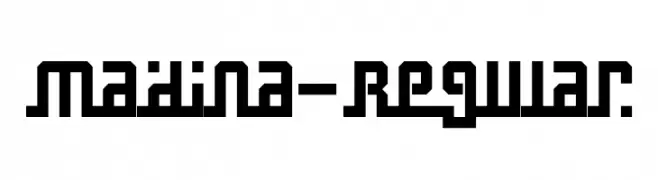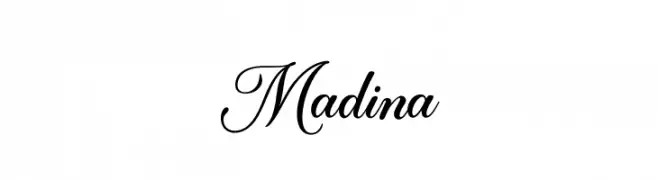
An elegant script font with flowing cursive style and intricate swashes.
A sophisticated script font with elegant loops and swashes, perfect for decorative uses.
A bold, geometric font with a modern, digital aesthetic.
A bold, geometric font with a modern, futuristic style.
A dynamic, flowing script font with elegant, fluid letterforms and a sophisticated style.
A bold and expressive script font with fluid, dynamic strokes.
A fluid and elegant script font with a handwritten appearance.
A whimsical and elegant script font with sweeping curves and playful loops.
A whimsical script font with flowing, interconnected letterforms and a playful style.